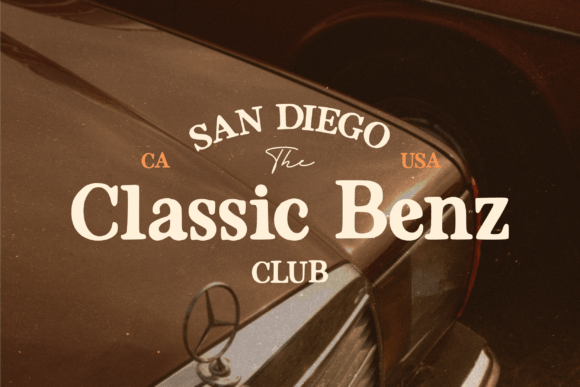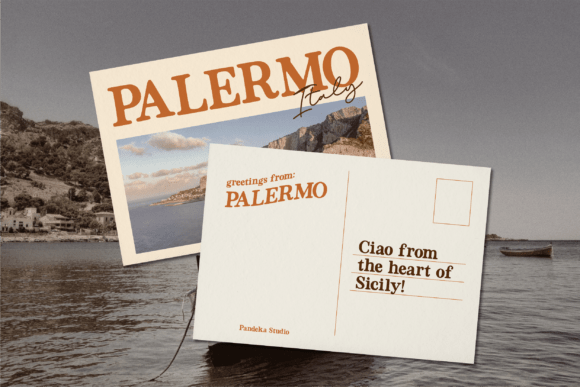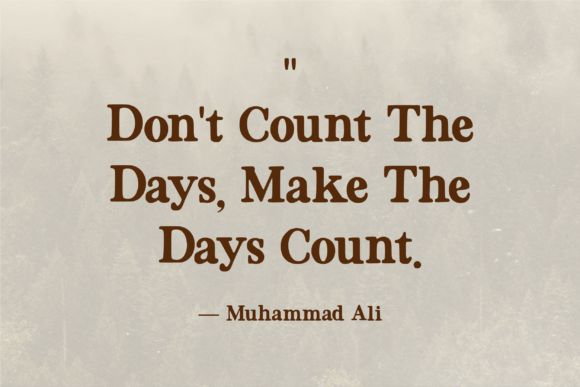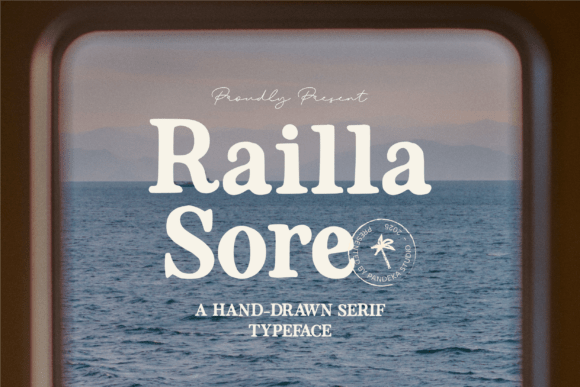
Introduction to Railla Sore Font
Railla Sore is a handmade natural serif font that blends rustic charm with modern elegance.
Inspired by handcrafted lettering and organic forms, this font brings warmth, authenticity, and a personal touch to your designs With clean yet subtly textured letterforms, Railla Sore Regular is perfect for projects that need a balance of creativity and natural style.